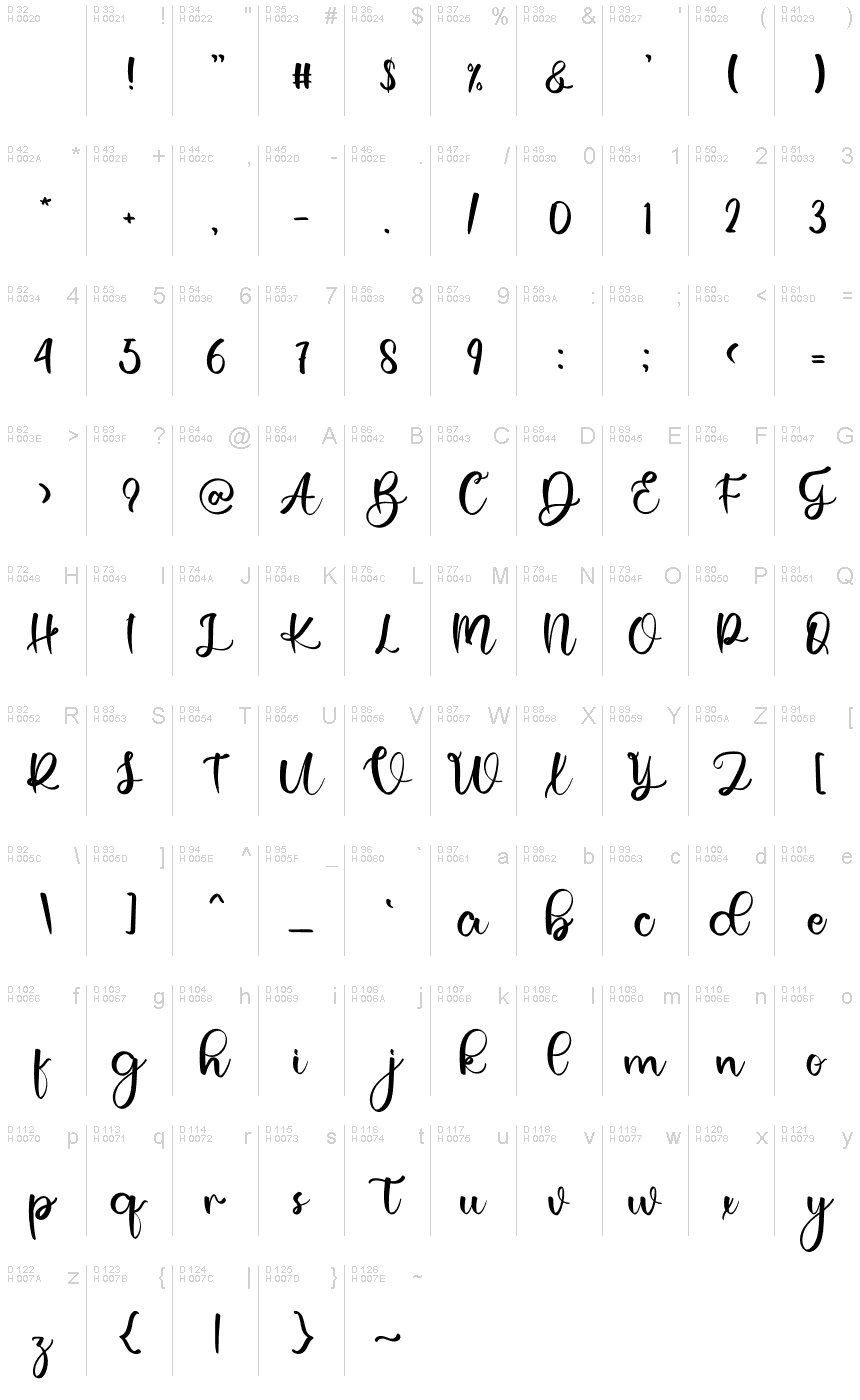
Rustick
Rustick, a whimsical handwritten font designed by PiPi Creative, exudes charm and warmth. With its playful curves and organic feel, Rustick adds a touch of authenticity to any project. Its versatility makes it suitable for a range of creative endeavors – from crafting eye-catching logos and branding materials to designing captivating social media posts.
Whether you're creating wedding invitations that evoke romance or developing children's book illustrations brimming with imagination, Rustick effortlessly captures the essence of your message. Let your creativity flow with Rustick's handcrafted allure.